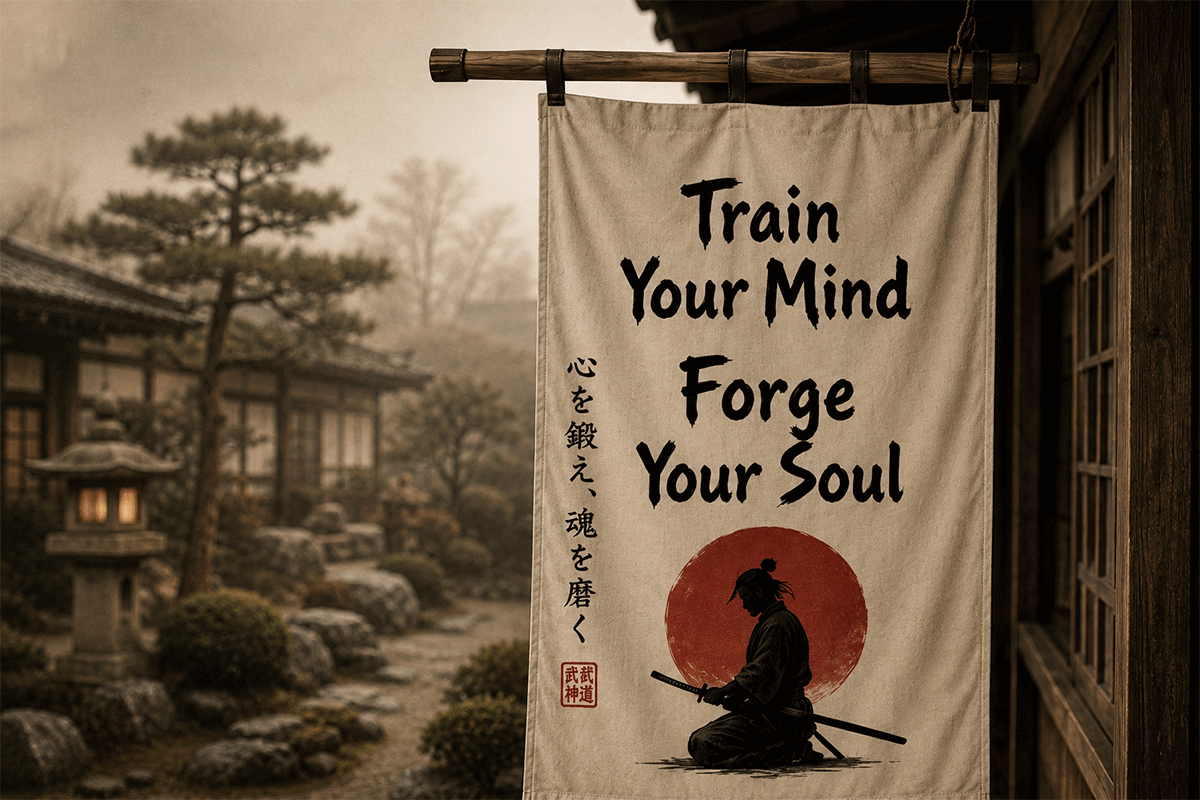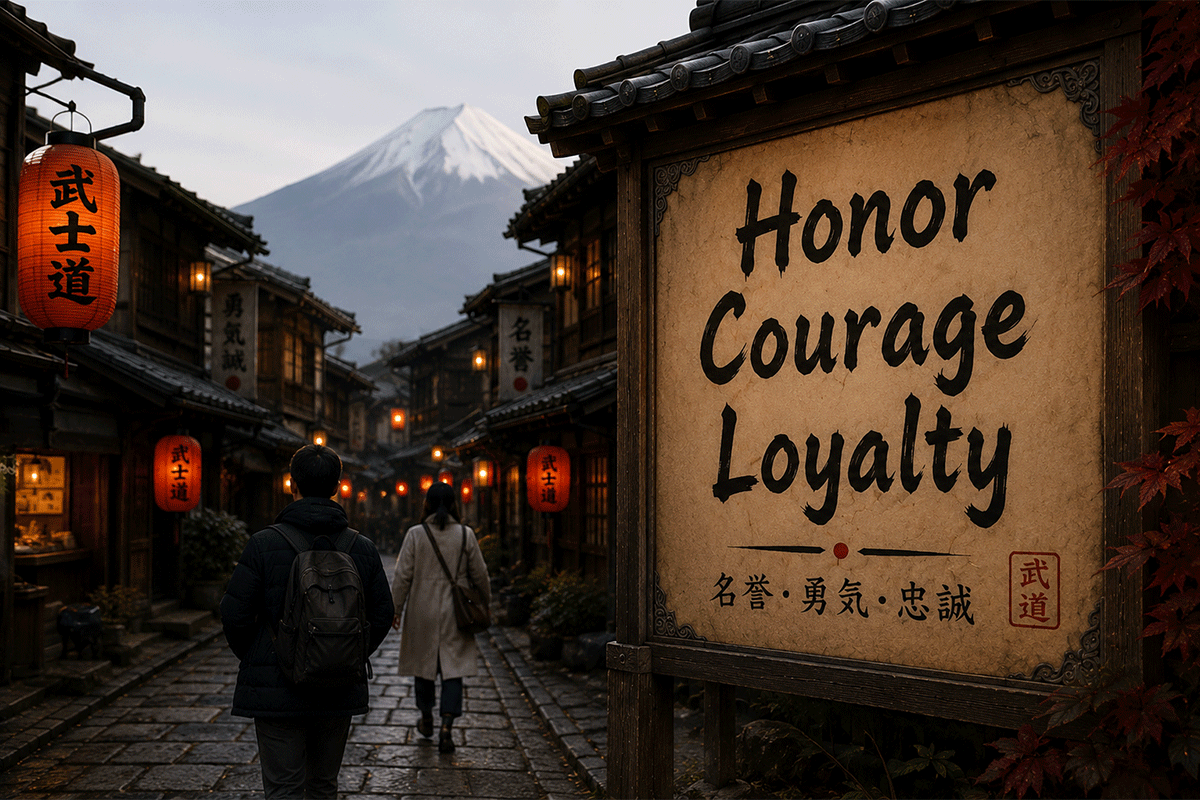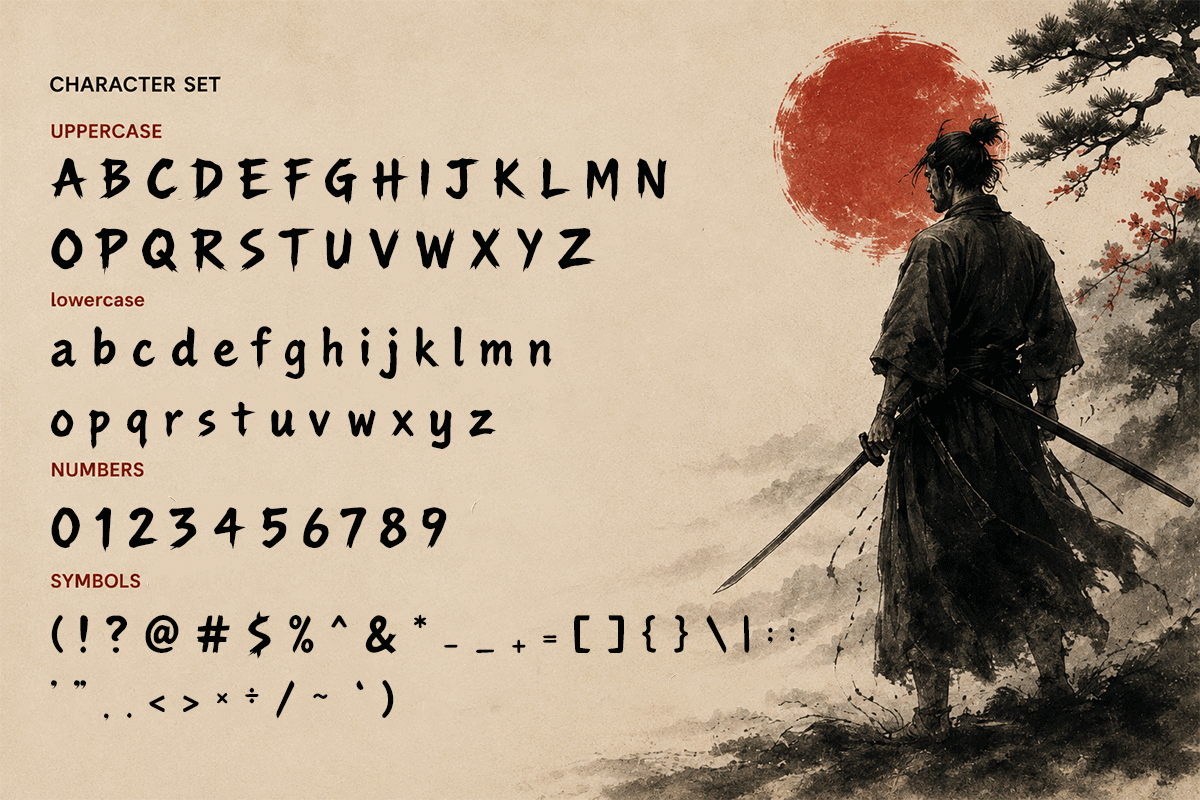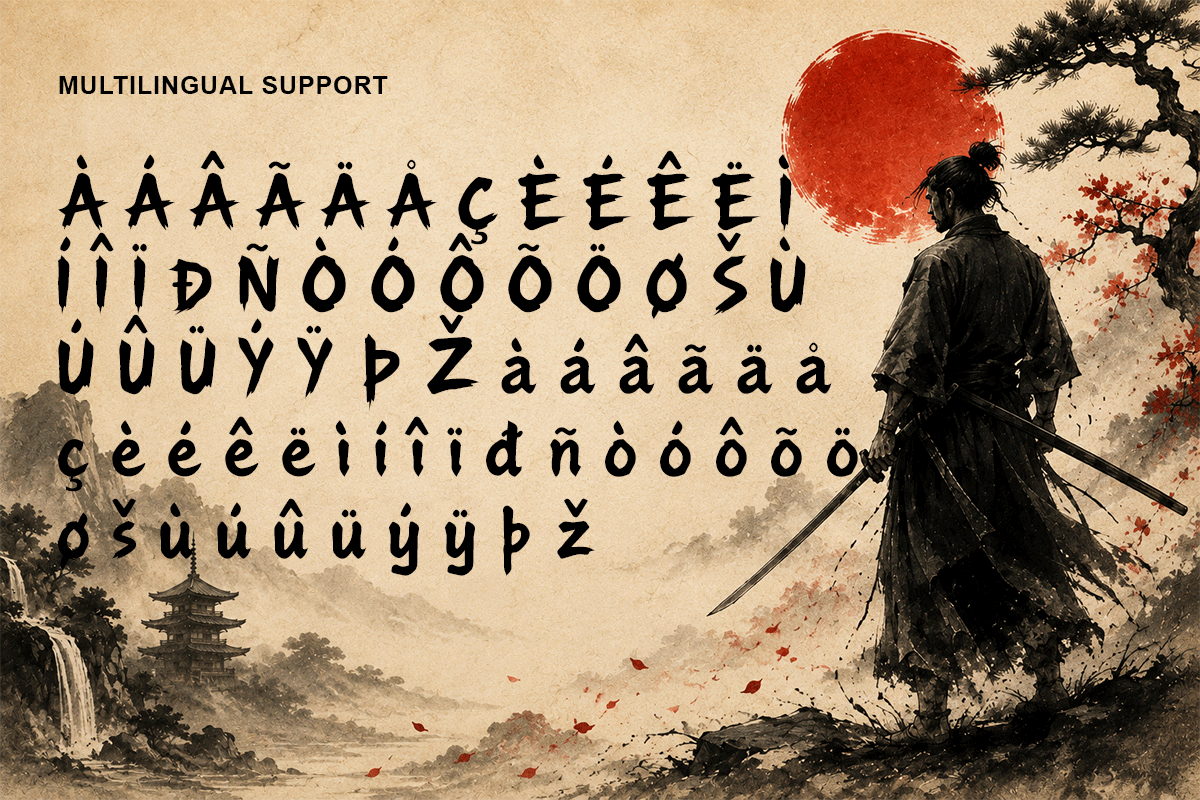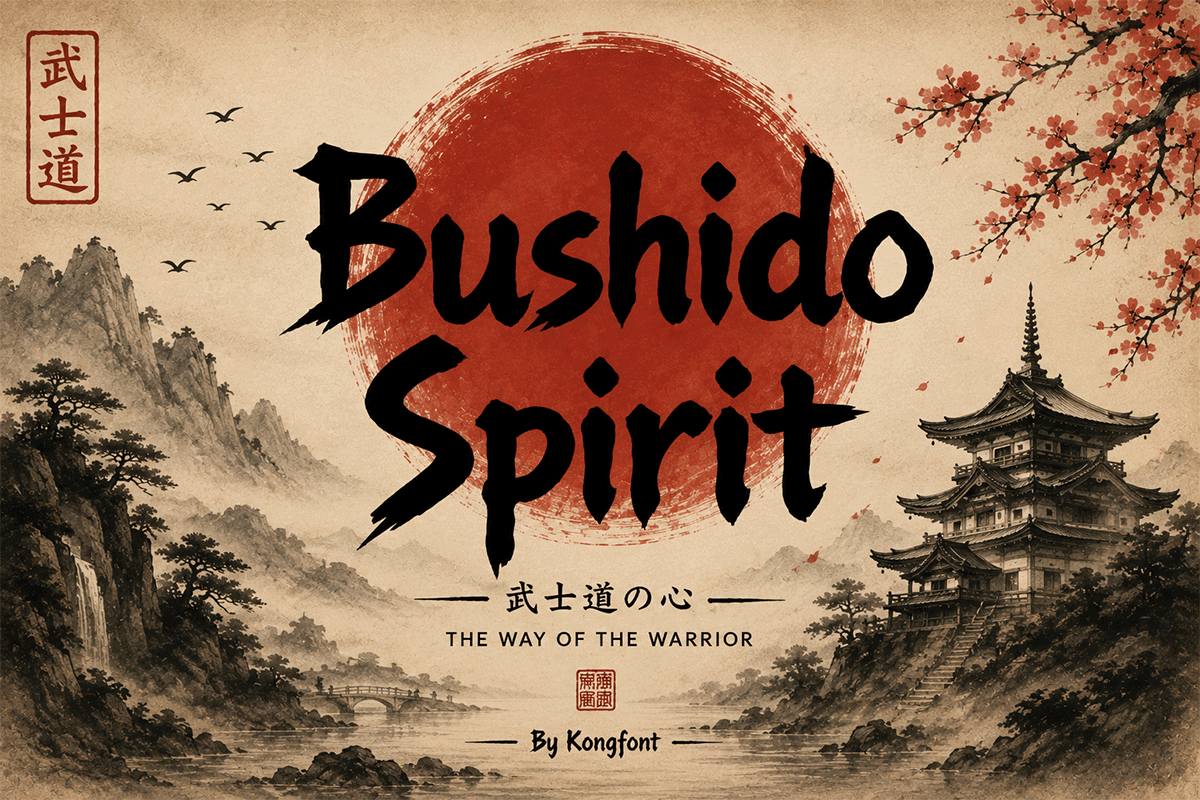
Bushido Spirit A Modern Japanese Brush Font is a bold Japanese brush display font inspired by the timeless philosophy of the samurai and the elegance of traditional Japanese calligraphy. With expressive brush strokes, sharp edges, and handcrafted details, this typeface captures the strength, discipline, and honor of Bushido while delivering an authentic artistic character. Perfect for designs that demand a powerful Eastern aesthetic, Bushido Spirit A Modern Japanese Brush Font brings the atmosphere of ancient Japan into every project.
Every character is carefully crafted to preserve the natural flow of hand-painted brush lettering while maintaining excellent readability. Whether you're designing movie titles, restaurant branding, martial arts identities, game artwork, or cultural event promotions, Bushido Spirit A Modern Japanese Brush Font creates a striking visual impact filled with tradition and energy.